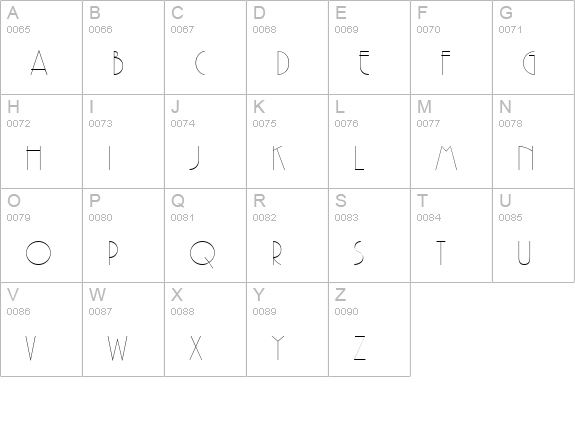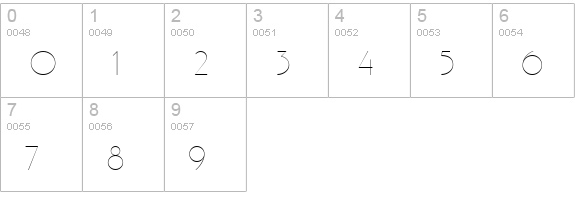
Pouf SSi Light Font Details
Pouf SSi Light is a refined, elegant variant in the Pouf typeface family \xE2\x80\x94 well suited to elegant body text, refined sub-headings, and luxury branding.
Pouf SSi Light font is a sleek and elegant typeface that exudes sophistication and modernity. With its clean lines and subtle curves, this font is perfect for a wide range of design projects, from branding to editorial design. The light weight of the font gives it a delicate and refined appearance, making it ideal for creating a sense of elegance and sophistication. What sets Pouf SSi Light font apart is that it is available for free download at FontsMarket.com. This means that you can easily access this versatile and stylish font without any cost, making it a valuable addition to your font library. Whether you are a professional designer or a hobbyist, Pouf SSi Light font offers a high-quality and visually appealing option for your creative projects. Download it today and elevate your designs with this beautiful and free font.